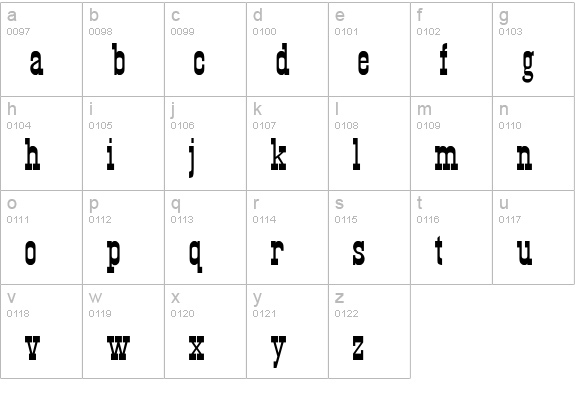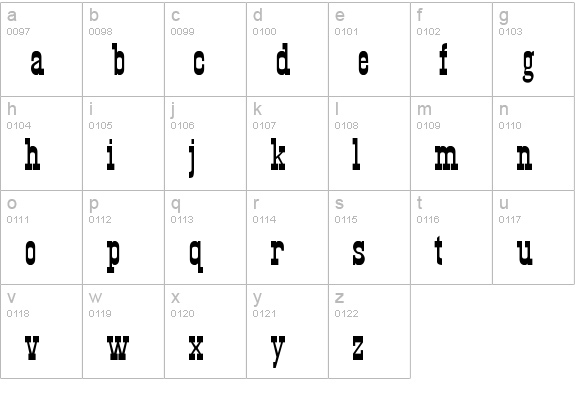
Cheyenne Font Details
Cheyenne font is a stunning typeface that exudes elegance and sophistication. Its sleek and modern design makes it perfect for a wide range of projects, from branding to advertising to invitations. With its clean lines and unique flourishes, Cheyenne font is sure to make your text stand out and leave a lasting impression. Best of all, this beautiful font is available for free download at FontsMarket.com, so you can start using it in your designs right away. Don't miss out on the opportunity to add this versatile and eye-catching font to your collection today!